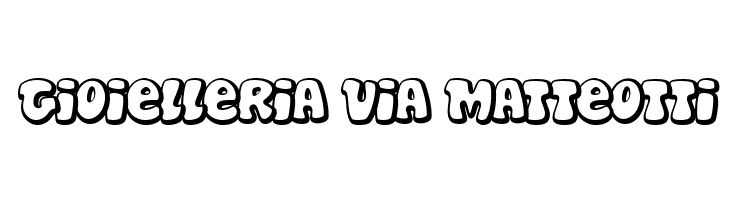
Monaghan Font
- Font: Monaghan
( Fonts by Blue Vinyl - Jess Latham - www.bvfonts.com )
A bold, playful font with rounded, outlined characters and a cartoon-like style.